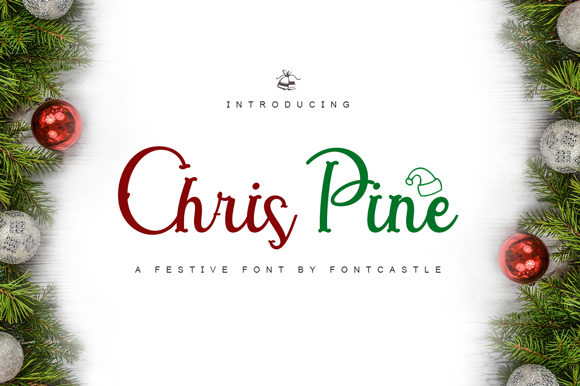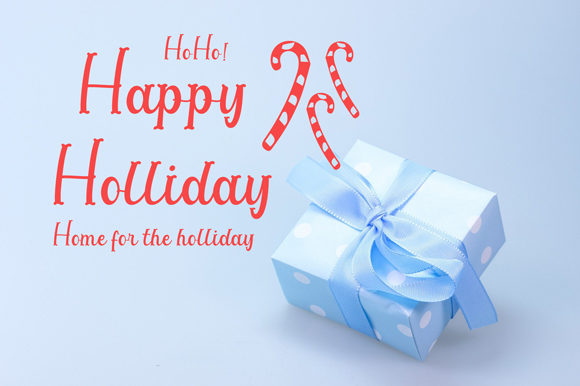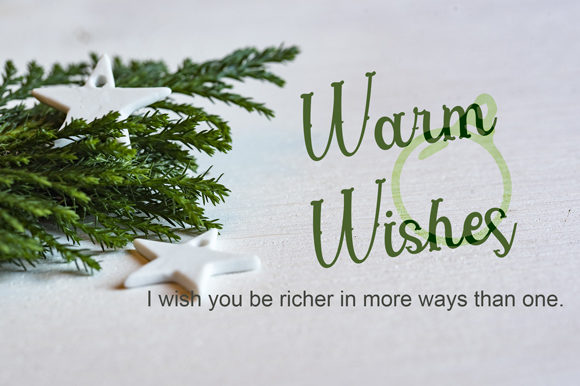
About Chris Pine Font
Chris Pine is an elegant and festive handwritten font. It is ideal for holiday-themed greeting cards and for any crafting project that requires a romantic touch.